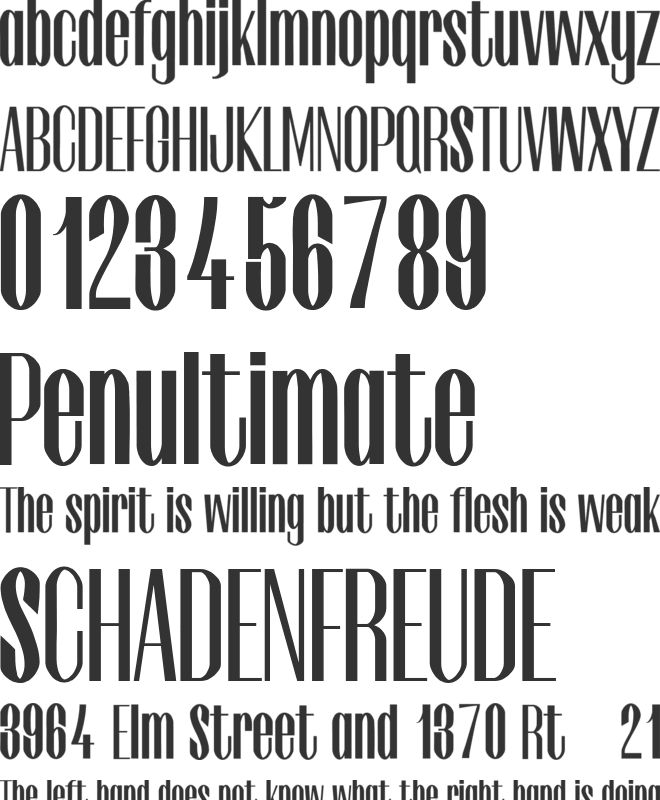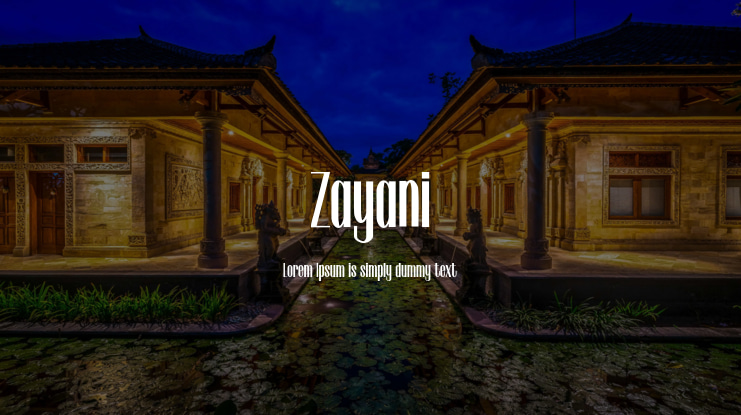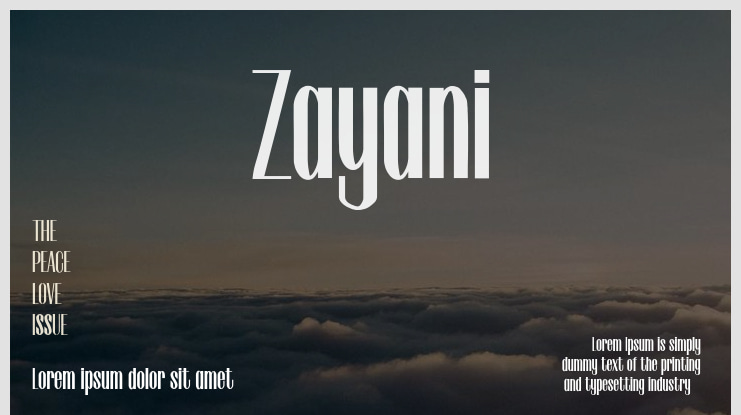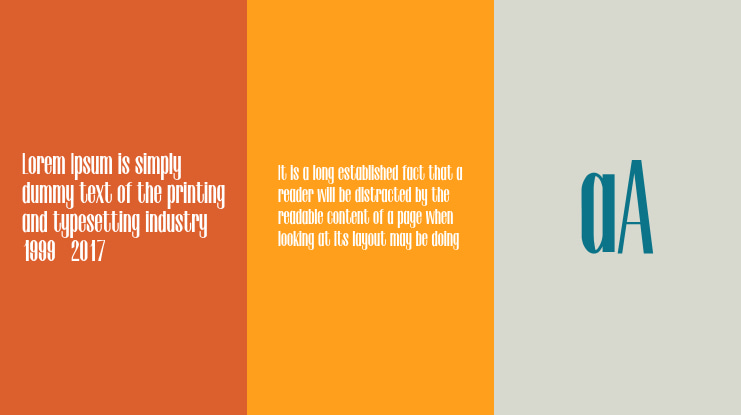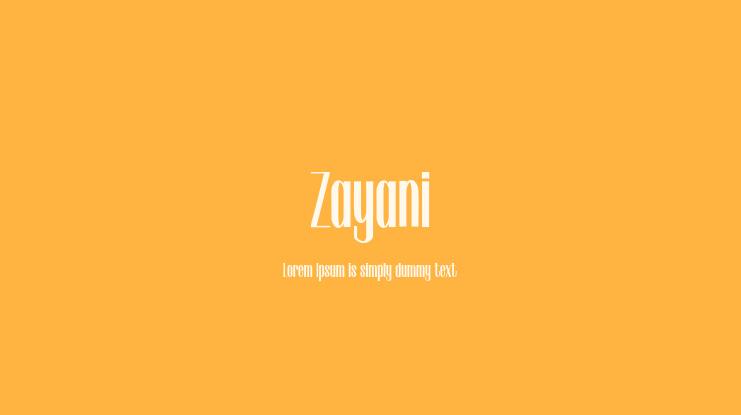
Zayani Font
You’ll love the Zayani Display Typeface, a stylish, modern, and versatile premium font with a timeless appeal that will make your designs more vibrant and eye-catching.